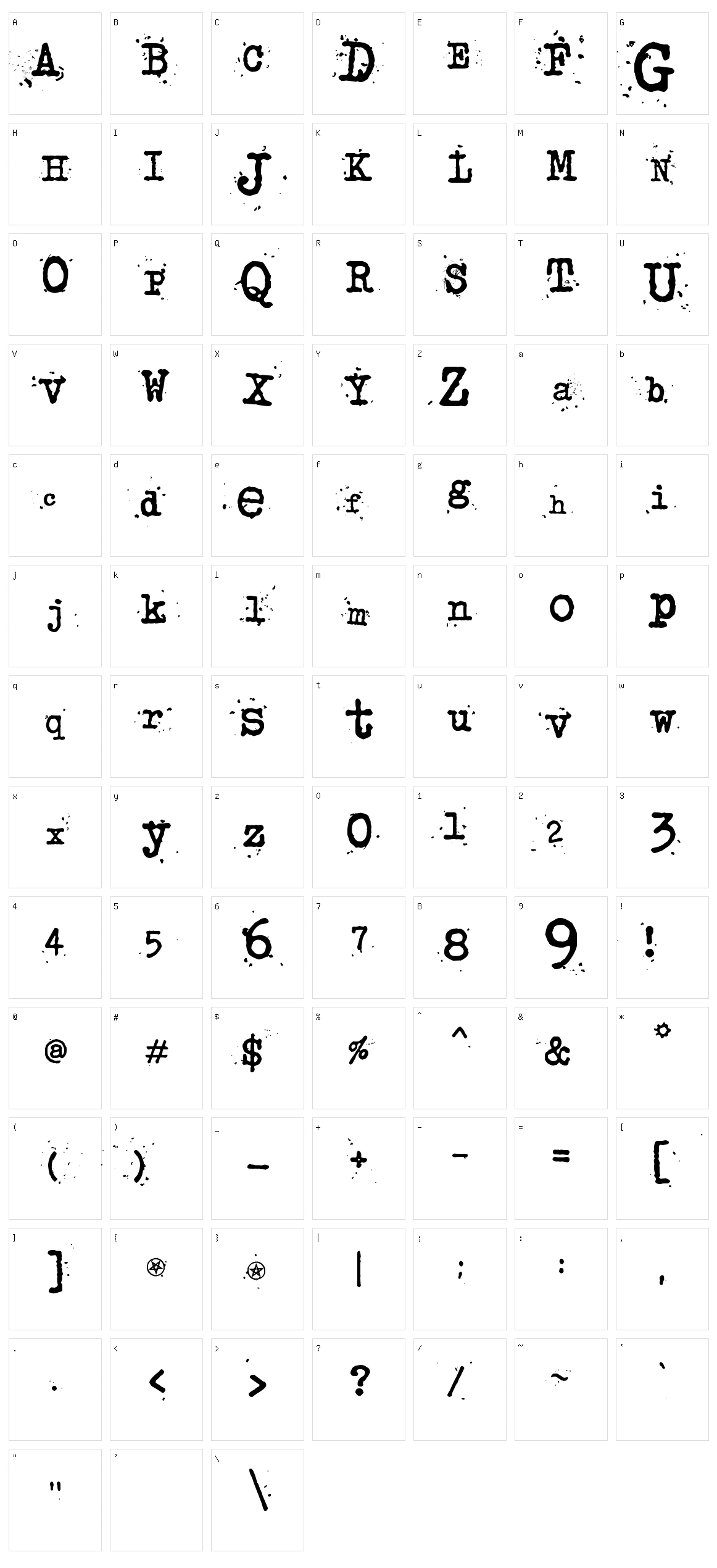
The free font Junko's Typewriter is carefully designed by junkohanhero, showcasing a thoughtful balance of creativity and usability and falls under the Typewriter font style. When you download the ZIP file, it contains only 82.45 KB of font files, making it lightweight and quick to download. Please review the license details below to understand permitted usage and distribution rights. If license information is not available, we recommend using this font for personal projects only or contacting the author directly for commercial usage permissions.